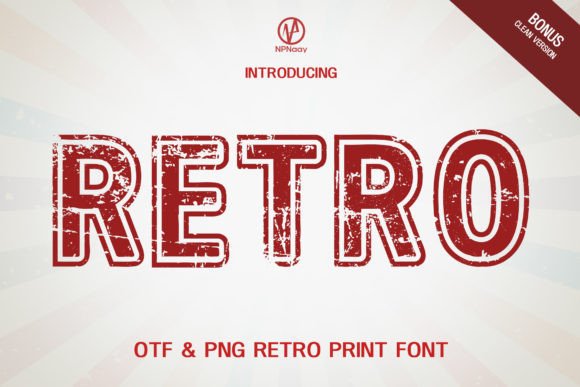
It is perfect for various purposes such as headlines, logos, posters and more. Are you looking for a stunning display font to add a vintage touch to your design work? Then you should definitely check out Retro font! Created by NPNaay, Retro is a display font family that features a vintage and grunge-distressed style. Whether you’re looking to make headlines, logos, posters or even greeting cards, this font will add a unique and stylish touch to your design projects. Retro font is an eye-catching and unique font. Its vintage style and grunge-distressed design make it stand out from the crowd and bring a creative edge to any project. Its strong personality makes it perfect for bold designs and adds a touch of character to any project. Its highly versatile nature makes it ideal for a wide range of projects, such as logos, posters, headlines, greeting cards and more. Retro font is sure to give your design work the extra edge it needs. Its unique style and vintage charm will make your project look truly one-of-a-kind and give it a bold, creative and memorable look. So, if you’re looking for a unique display font that will bring a vintage and grunge-distressed charm to your design work, look no further than NPNaay’s Retro font!Download and Get Item Here